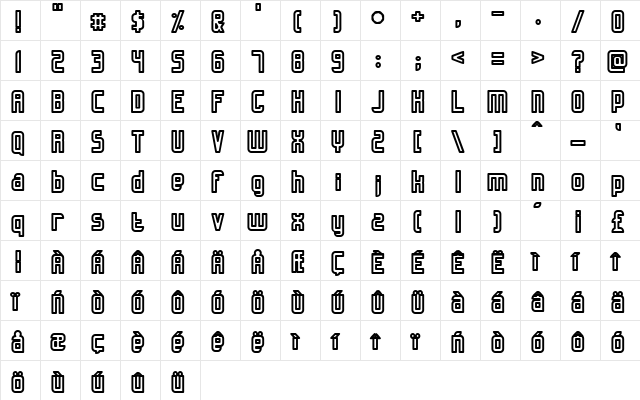
Slidfis saftig Regular
Design Context for Slidfis saftig Typeface
Slidfis saftig is a composed and adaptable typeface that performs quietly and consistently across a wide range of design contexts.